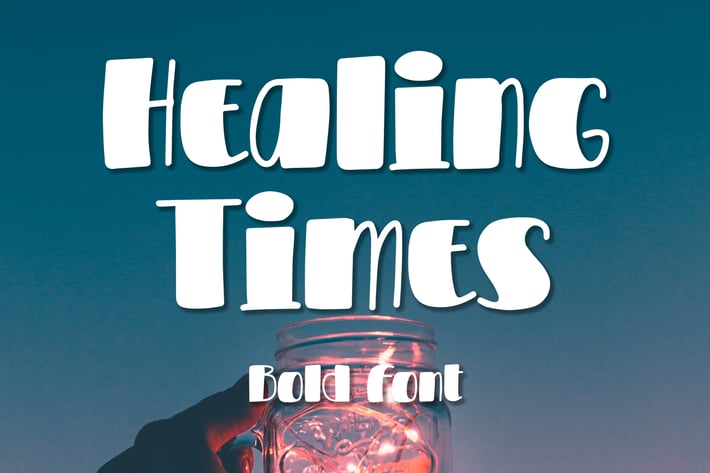
Healing Times - Bold Font
Healing Times - Bold Font contains a lowercase, uppercase, symbol, and also supports multi-language. There’s a lot of ligature in this font. Healing Times - Bold Font also comes with ligatures, stylistic alternates and many more.
this font suitable for fashion, branding, catalog and other design that you want.